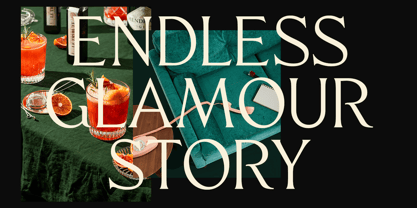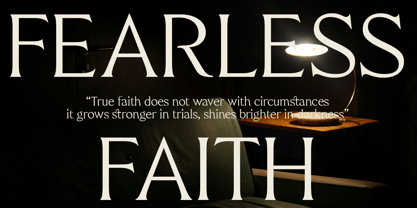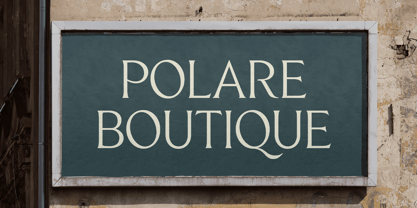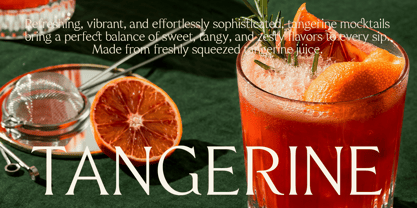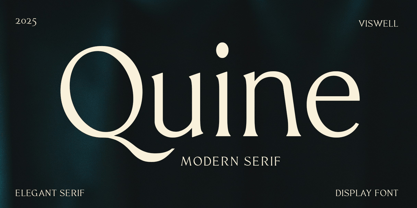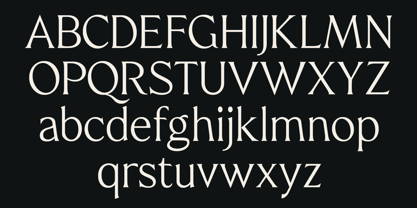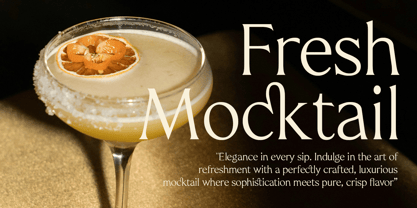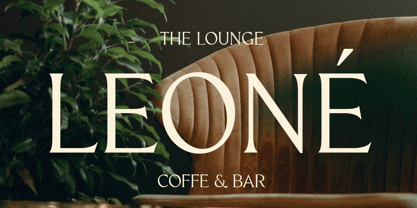
Quine
by Viswell
Introducing Quine, a modern serif font where timeless elegance meets contemporary refinement. Designed with a balance of graceful curves and sharp precision, Quine embodies sophistication, making it an impeccable choice for high-end branding, editorial designs, luxury packaging, and statement typography. Its distinctive letterforms, with fluid strokes and refined contrast, create a harmonious blend of tradition and modernity, ensuring that every word you set in Quine carries a sense of poise and exclusivity.
Crafted for designers who seek versatility and elegance, Quine adapts effortlessly to both bold headlines and delicate body text, offering a seamless reading experience while making an unforgettable impression. Whether you're working on magazine layouts, premium logos, or refined advertising, this font elevates your designs with a touch of understated luxury. Step into a world of timeless sophistication—experience Quine today and redefine modern elegance.
Designers: Najril Ilham Amrullah
Foundry: Viswell